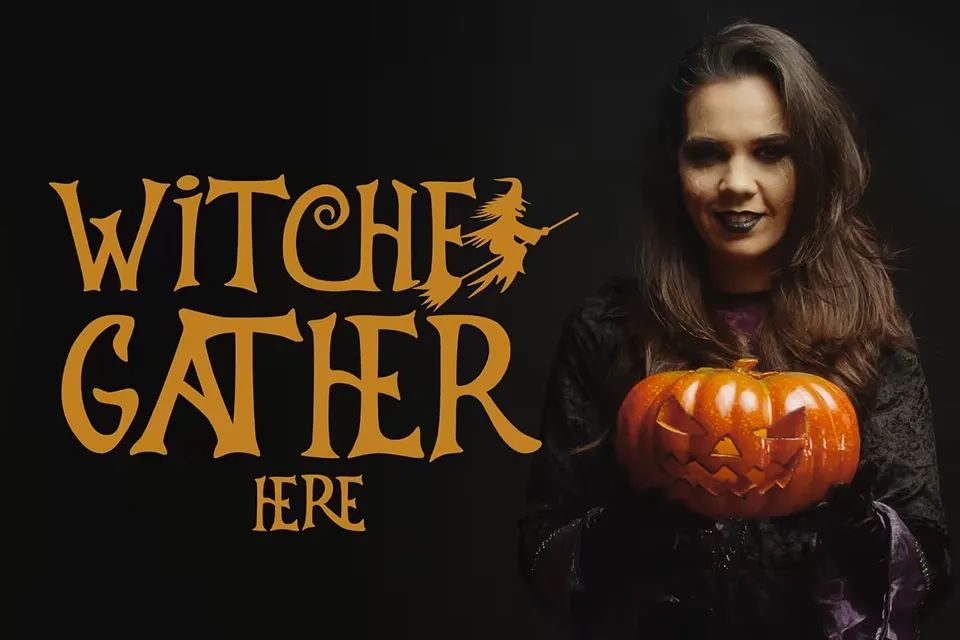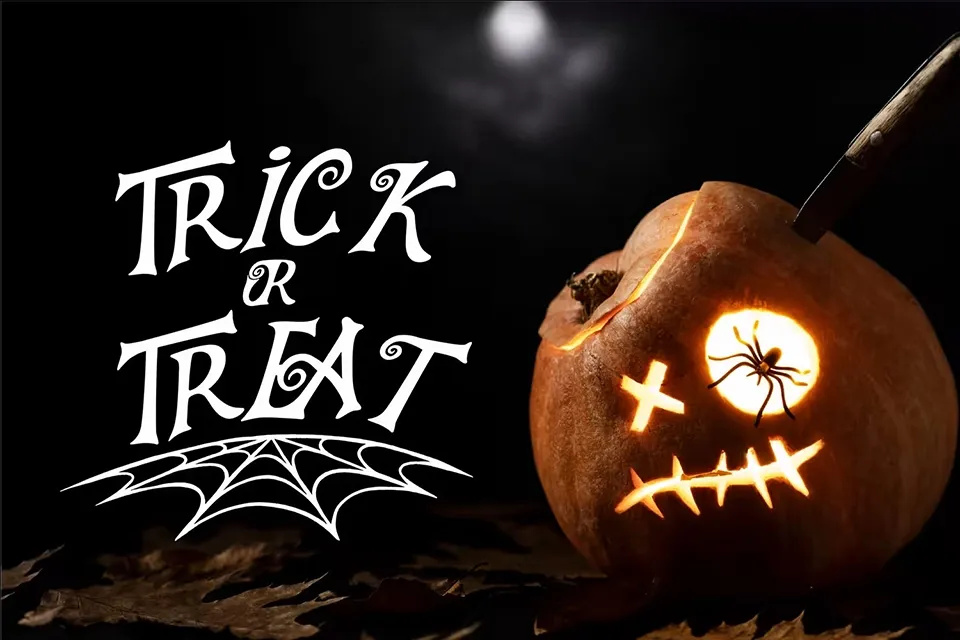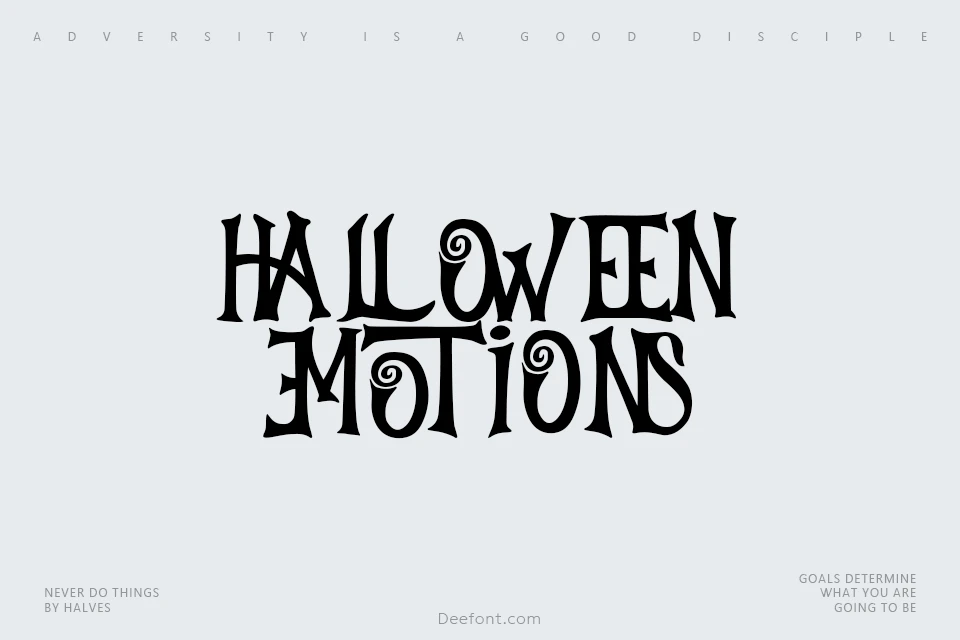
Halloween Emotions Font
Halloween Emotions Font is a captivating typeface designed to bring the spooky spirit of Halloween to life! Perfect for creating eerie and playful designs, this font features bold, whimsical letters adorned with ghostly accents and swirling details. Its unique combination of spooky and fun elements makes it ideal for Halloween-themed projects such as party invitations, posters, decorations, and social media graphics. The font captures the essence of haunted nights with bats, ghosts, and a mysterious atmosphere, adding a creative flair to your designs. Let Halloween Emotions Font transform your creations into a celebration of the season’s thrills and chills!